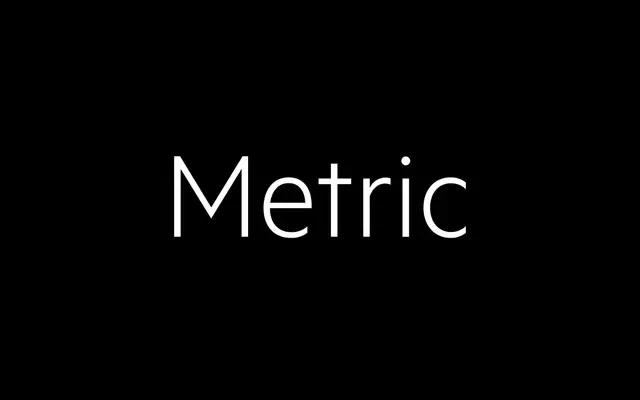
Metric
Klim Type Foundry · Kris Sowersby · 2011
Metric specimen from Klim Type Foundry
A geometric humanist sans drawn from West Berlin street signs, monoline and rational but warmed by optical corrections.
A geometric humanist sans by Kris Sowersby, drawn from lettering on West Berlin street signs and softened with typographic optical correction. Seven weights run from Thin to Black, each with an italic, giving it the range to handle signage, interface text and editorial setting. Designed alongside Calibre as a sibling system: the two share a fundamental geometry but diverge in how key letterforms finish, so Metric reads slightly more engineered while Calibre stays a touch more humanist.
Klim classifies it as Modern: Lineal/Geometric/Humanist; a geometric humanist sans inspired by lettering on West Berlin street signs, with monoline construction tempered by typographic optical correction; designed alongside Calibre and sharing its fundamental geometry.